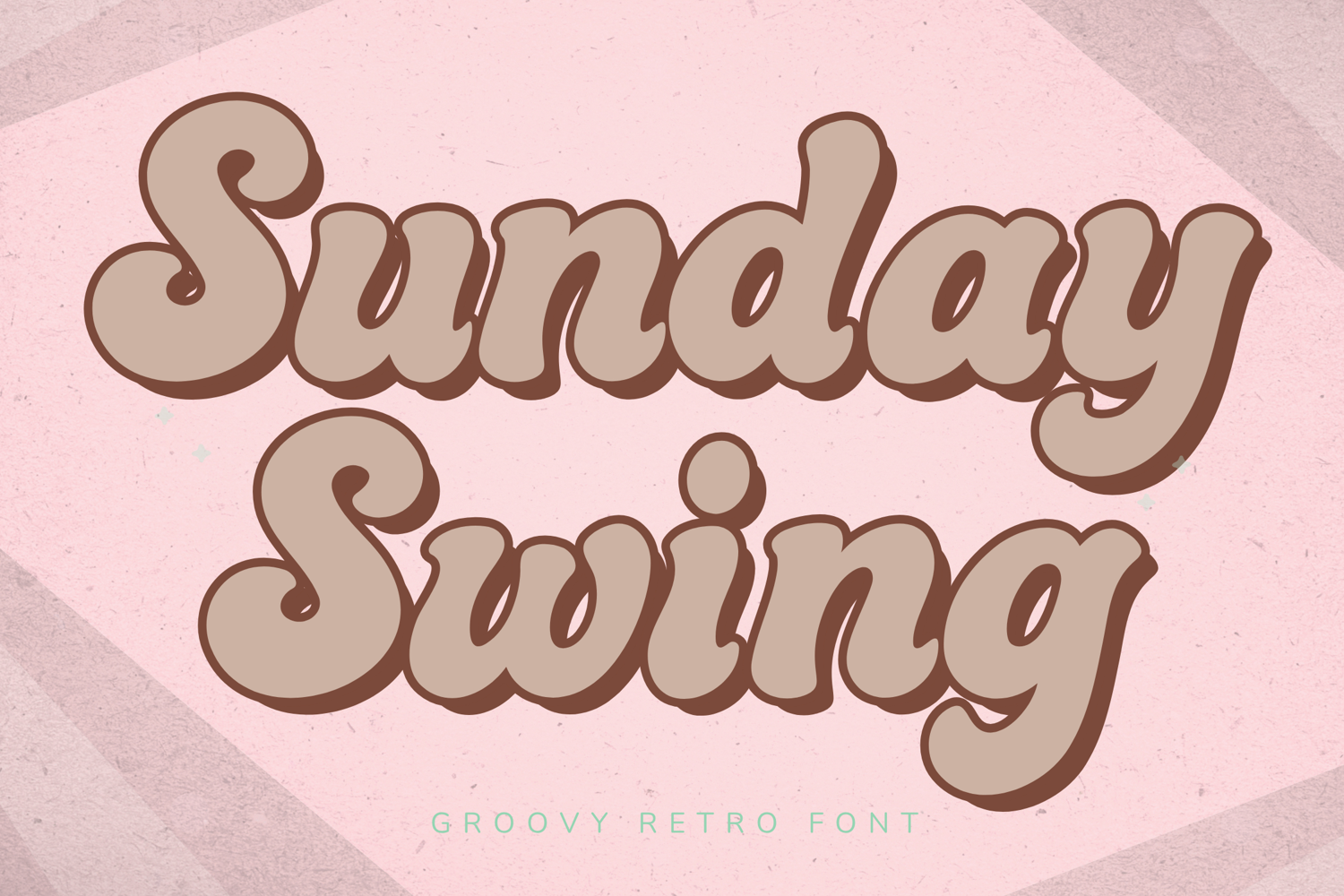
Sunday Swing - Groovy Retro Font
Sunday Swing – Groovy Retro Font
Sunday Swing is a cheerful groovy retro font inspired by vintage 70s signage, classic diner typography, and feel-good weekend vibes. With its chunky rounded shapes, smooth curves, and playful retro personality, this font instantly brings warmth, nostalgia, and happiness into any design.
The soft inflated letterforms and bold groovy style create a friendly handcrafted appearance that feels both nostalgic and trendy, making it perfect for modern retro branding and creative projects.
Key Features:
Groovy retro style
Bold rounded letterforms
Vintage 70s inspiration
Smooth playful curves
Highly readable display font
Perfect For:
Retro branding
T-shirt designs
Sticker projects
Cricut crafts
Café branding
Social media graphics
Retro posters
Packaging design
Planner covers
Sublimation products
Best Use Cases:
Retro apparel brands
Sticker shops
Cricut projects
Café menus
Boutique packaging
Social media content
Planner accessories
Retro wall art
Brand Mood:
Groovy
Retro
Happy
Cheerful
Friendly
Nostalgic
Playful
Design Style:
Sunday Swing combines classic groovy typography with soft rounded forms to create a font full of charm and personality. The thick curves and vintage-inspired construction make every word feel energetic, friendly, and nostalgic while remaining clean enough for modern branding.